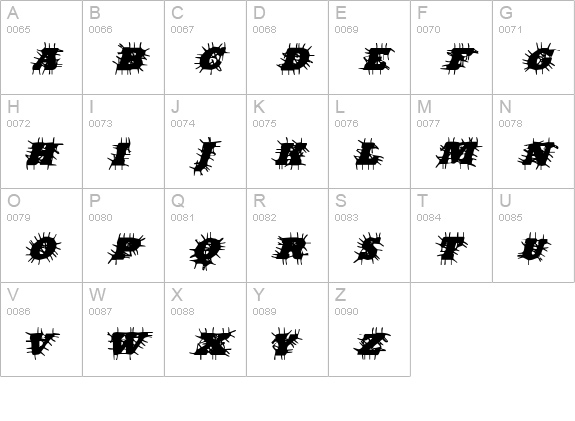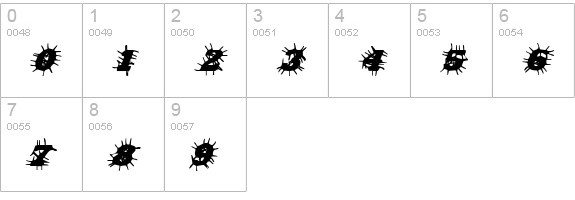
Bad Hair DayRegular Font Details
Bad Hair Day Regular font is a charmingly quirky and playful typeface that adds a touch of whimsy to any project. With its uneven and slightly unkempt letterforms, this font perfectly captures the carefree and carelessly stylish look of a bad hair day. Whether you're designing a poster, creating a logo, or adding a fun touch to your social media posts, Bad Hair Day Regular font is the perfect choice to bring a lighthearted and relaxed vibe to your designs. But the best part? Bad Hair Day Regular font is freely available to download at FontsMarket.com! That's right, you can add this delightful typeface to your font collection without spending a dime. Now you can unleash your creativity without worrying about breaking the bank. Simply head over to FontsMarket.com, find Bad Hair Day Regular font, and download it for free. Don't let the name fool you – Bad Hair Day Regular font is anything but bad. Its unique and charming style will make your designs stand out from the crowd and bring a smile to anyone who sees them. So why wait? Go ahead and download Bad Hair Day Regular font today and let your creativity flow freely!